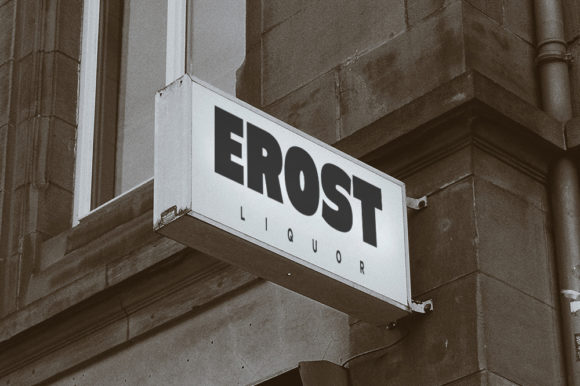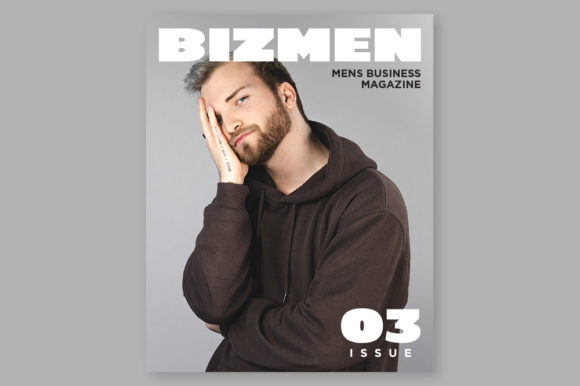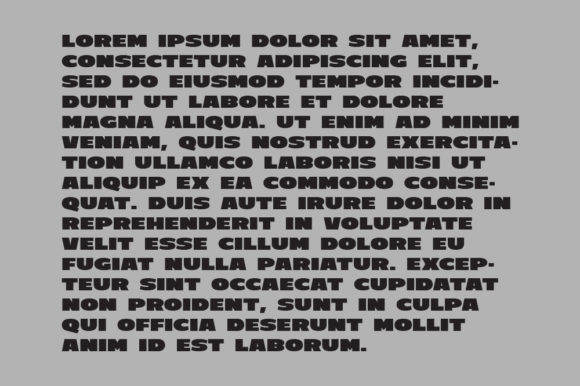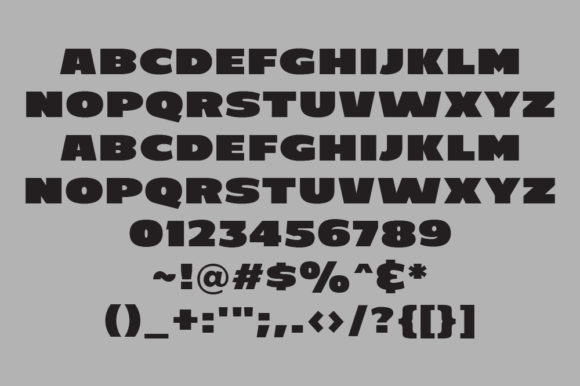
Discovering the Perfect Font: A Designer’s Dream
There’s nothing quite like the thrill of finally finding the perfect font for your project. The moment when all the elements come together, and your design starts to feel truly alive. For designers, this moment is a game-changer – and it’s exactly what C800 Extended Font aims to deliver.
C800 Extended Font is a beautifully crafted, bold sans serif typeface that’s been carefully designed to be both stylish and readable. Its casual charm makes it the perfect choice for any project that needs a down-to-earth, yet impactful look. Whether you’re working on a busy website or a standalone headline, C800 Extended Font is sure to impress.
With its incredible versatility and effortless charm, C800 Extended Font is an invaluable asset for any designer. Its ability to shine in even the most demanding contexts makes it a must-have for anyone looking to elevate their design game.
C800 Extended Font Key Features
- Font Family: C800 Extended Font, a high-resolution, extended font designed for optimal readability.
- Character Set: Includes a comprehensive character set with over 1000 characters, including Latin, Cyrillic, Greek, and many special symbols.
- Unique Characteristics: Features a unique blend of modern and classic styles, making it suitable for a wide range of applications, from body text to display headings.
C800 Extended Font Review
First off, I want to say that the C800 Extended Font has some amazing qualities. The ✨ bold and extended characters are a game-changer for any design project that needs a serious impact. The font is also incredibly versatile, working well for both digital and print media. I’ve used it for a variety of projects and it always seems to deliver.
- ✨ Bold and extended characters are incredibly effective for grabbing attention.
- ✨ The font is incredibly versatile and can be used for a wide range of projects.
- ✨ The font is easy to read, even at larger sizes.
However, there are a few limitations to the C800 Extended Font that I want to mention. ⚠️ One of the biggest issues is the lack of italic and oblique styles, which can make it difficult to use for certain types of projects. Additionally, the font can sometimes feel a bit too aggressive, which may not be suitable for all designs.
- ⚠️ Limited italic and oblique styles.
- ⚠️ Can feel too aggressive for certain designs.
Overall, I think the C800 Extended Font is a great choice for any design project that needs a bold and eye-catching font. While it may not be perfect, it’s a solid option that can add a lot of impact to your designs.
Tips for Getting the Most Out of C800 Extended Font
For optimal results, use C800 Extended Font in bold or italic styles to add emphasis to your text.
Experiment with different font sizes and combinations to create visually appealing designs.
C800 Extended Font is ideal for:
- Creating retro-style designs and graphics.
- Adding a vintage touch to your text elements.
- Designing signage and promotional materials.